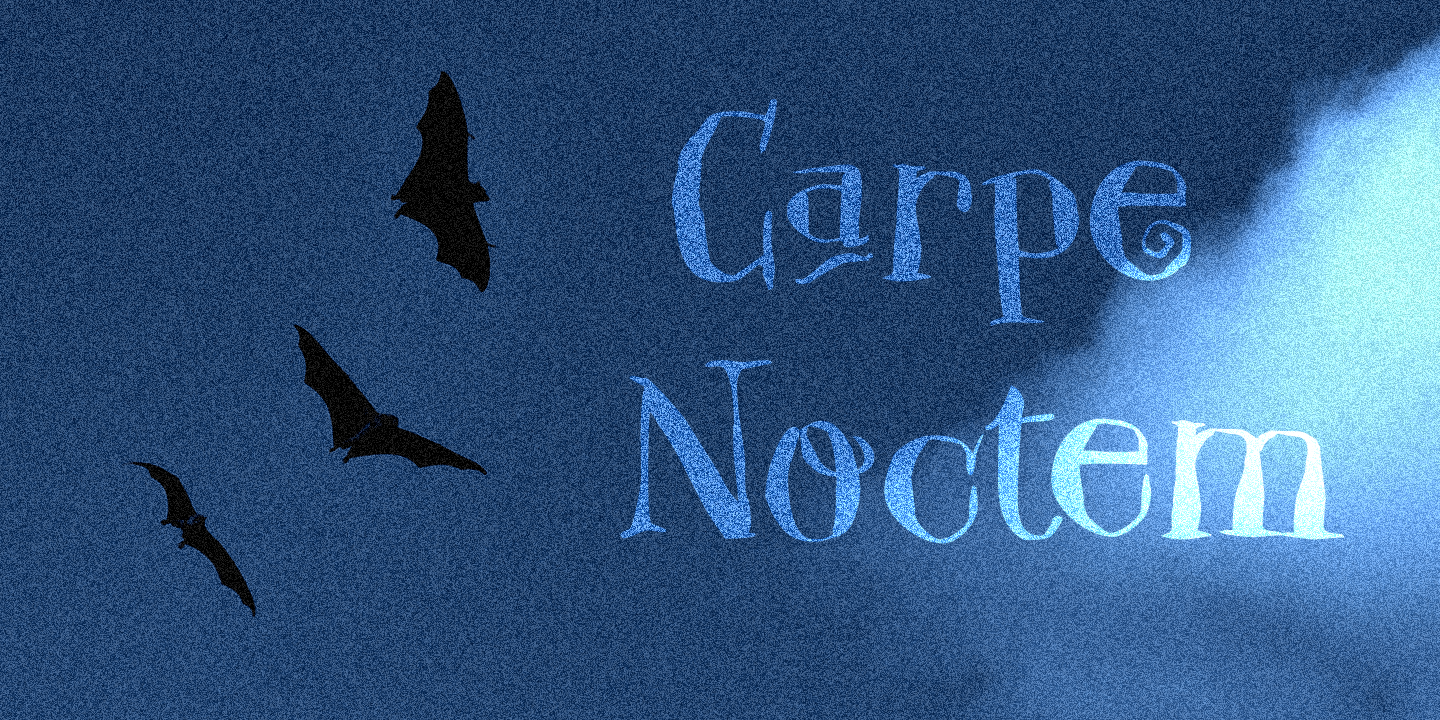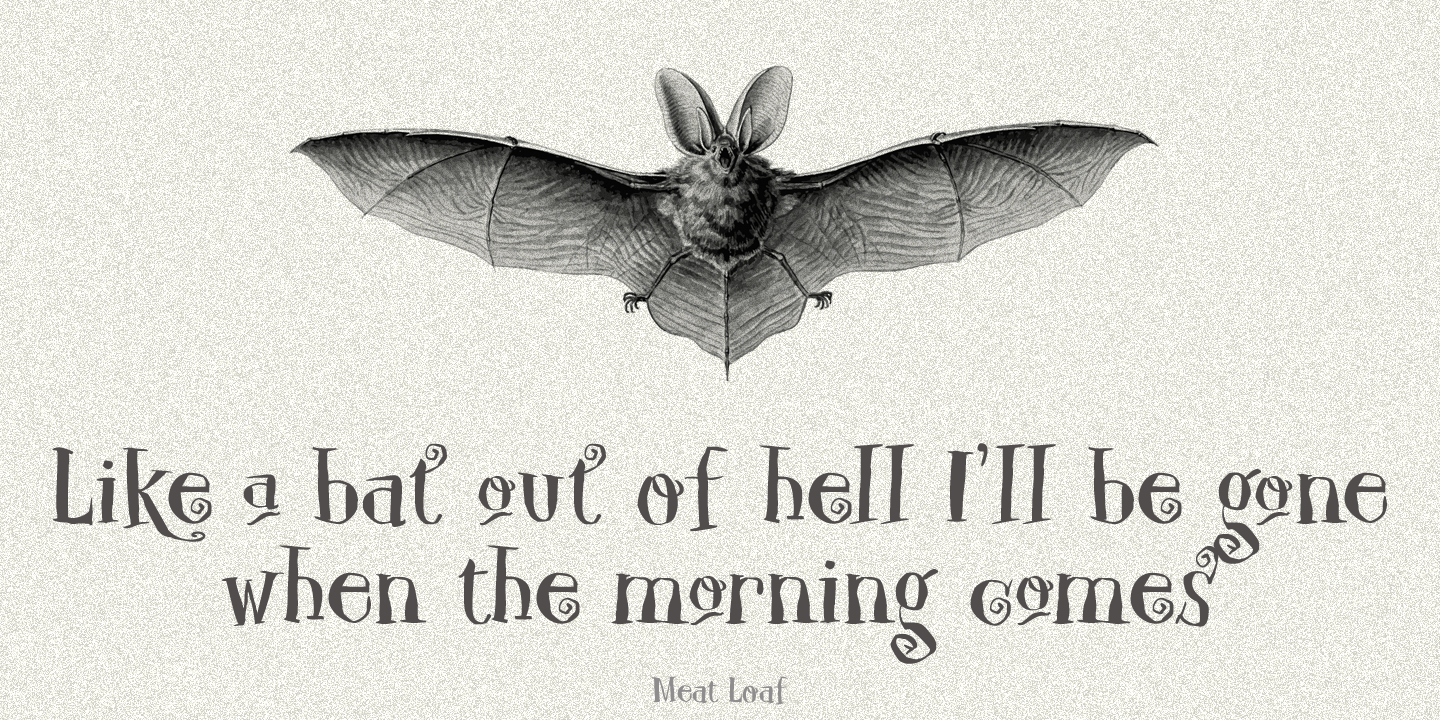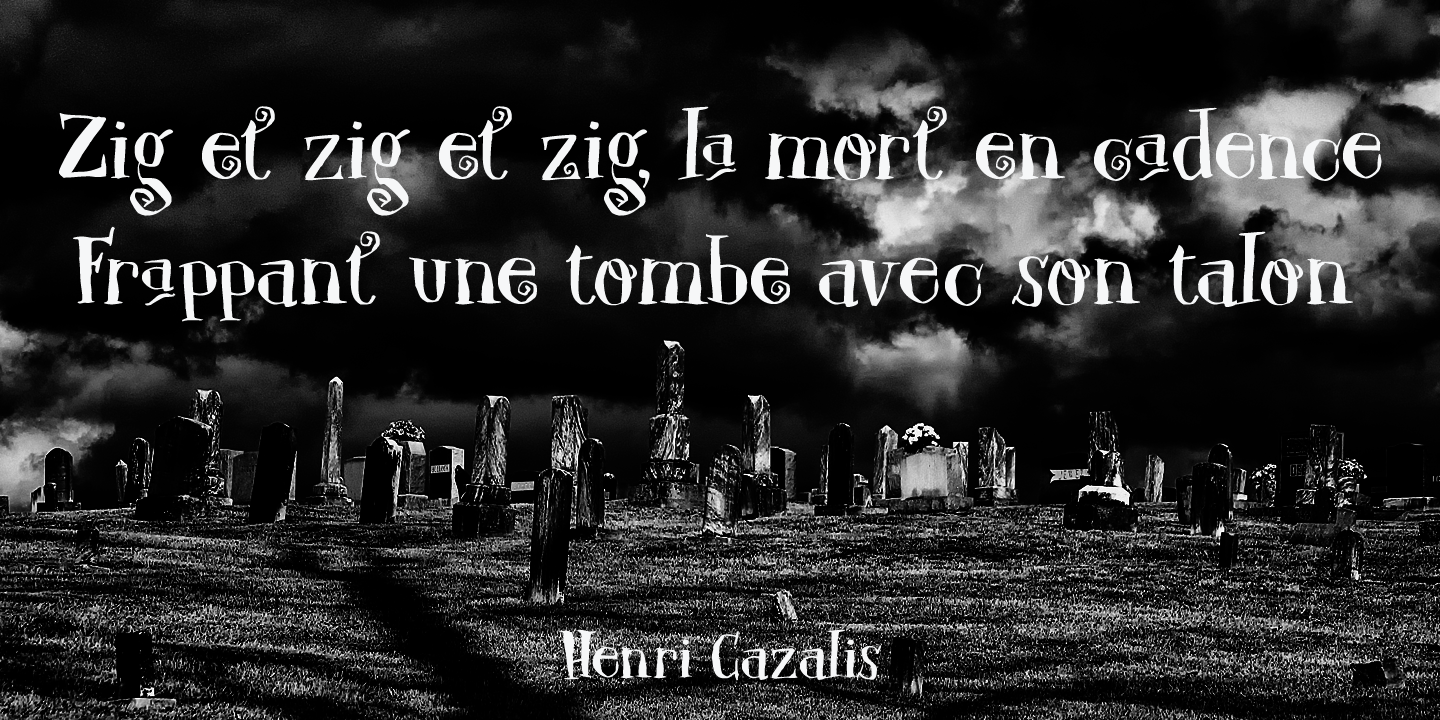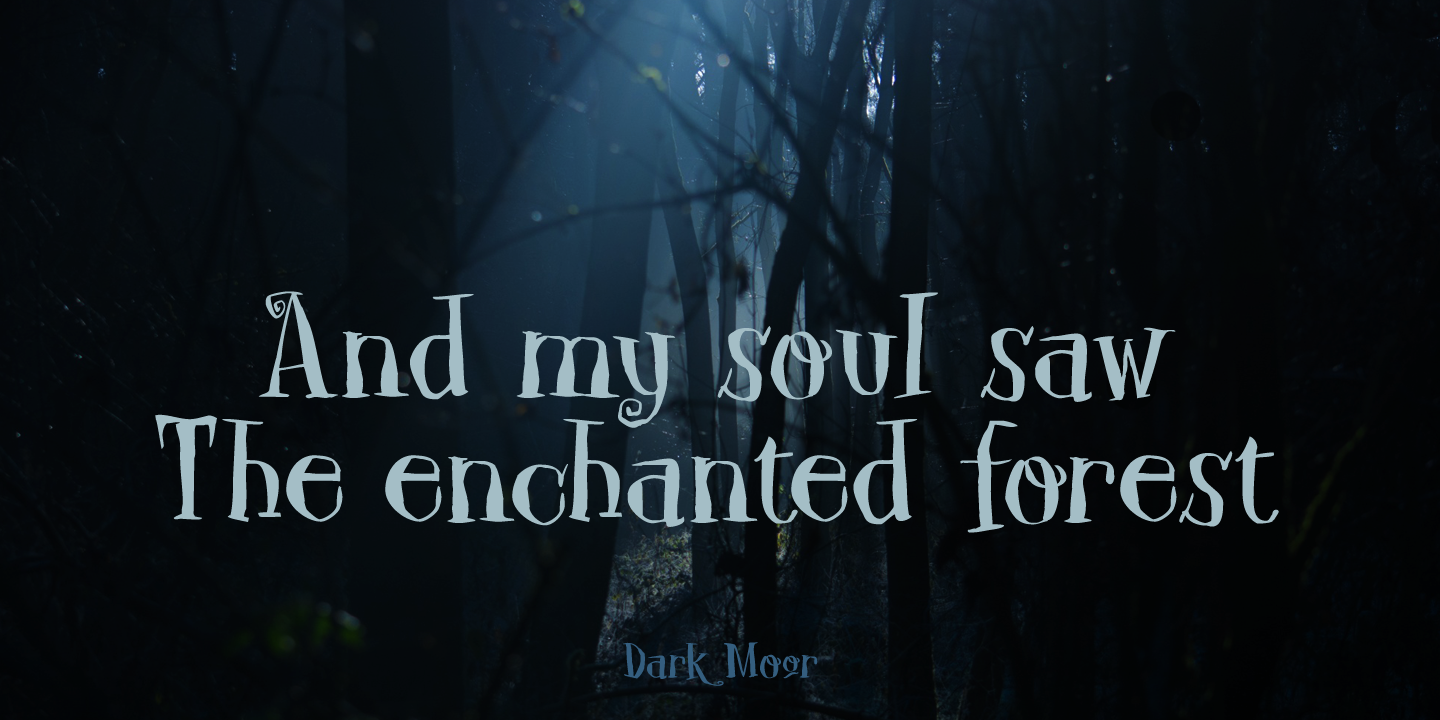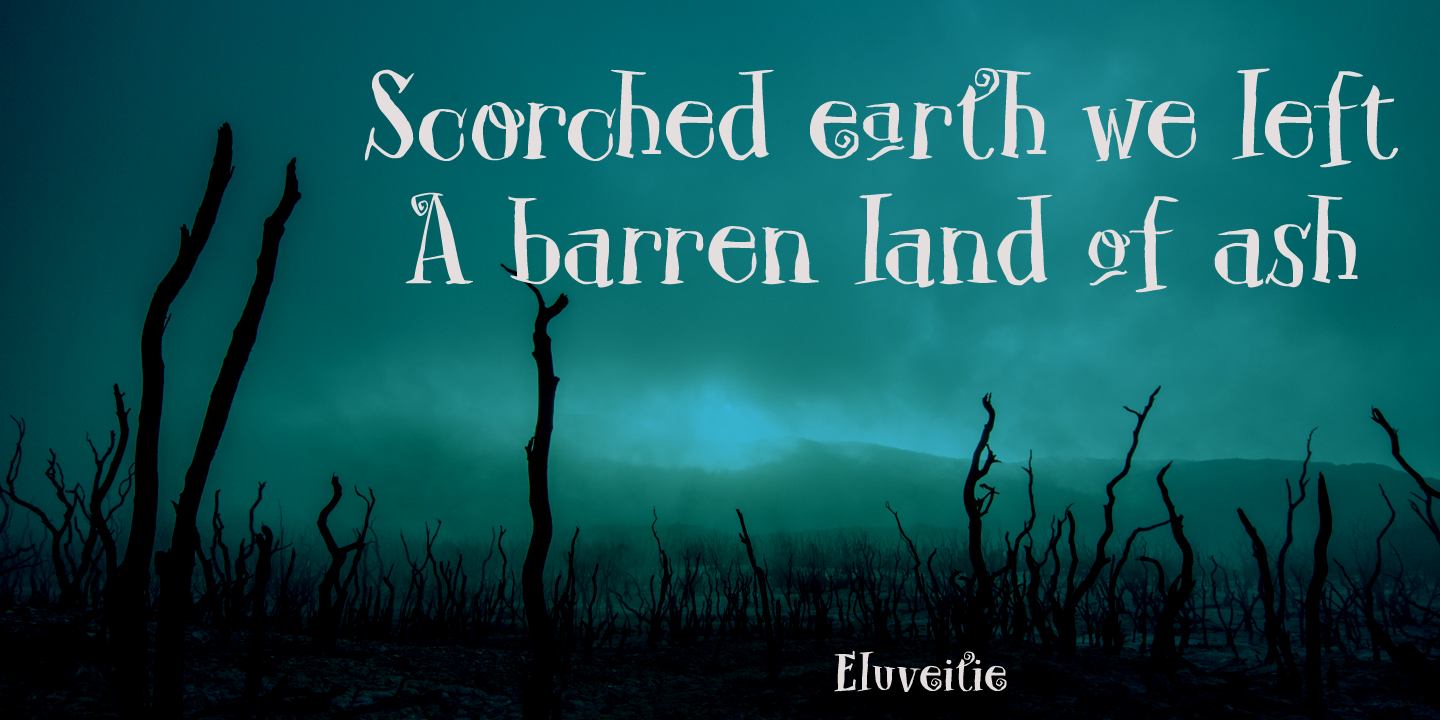
Carpe Noctem (Latin for ‘Seize The Night’), was a bit of a surprise. Someone asked me if I could create a lower case for my Closet Skeleton font. I began working on it and lo and behold, a beautiful font started taking shape. So, if you’re in need of a slightly scary fairytale font, complete with angled edges, swirly bits, a couple of alternate - even more curly - glyphs and an alternate medieval ampersand, then Carpe Noctem is your typeface!